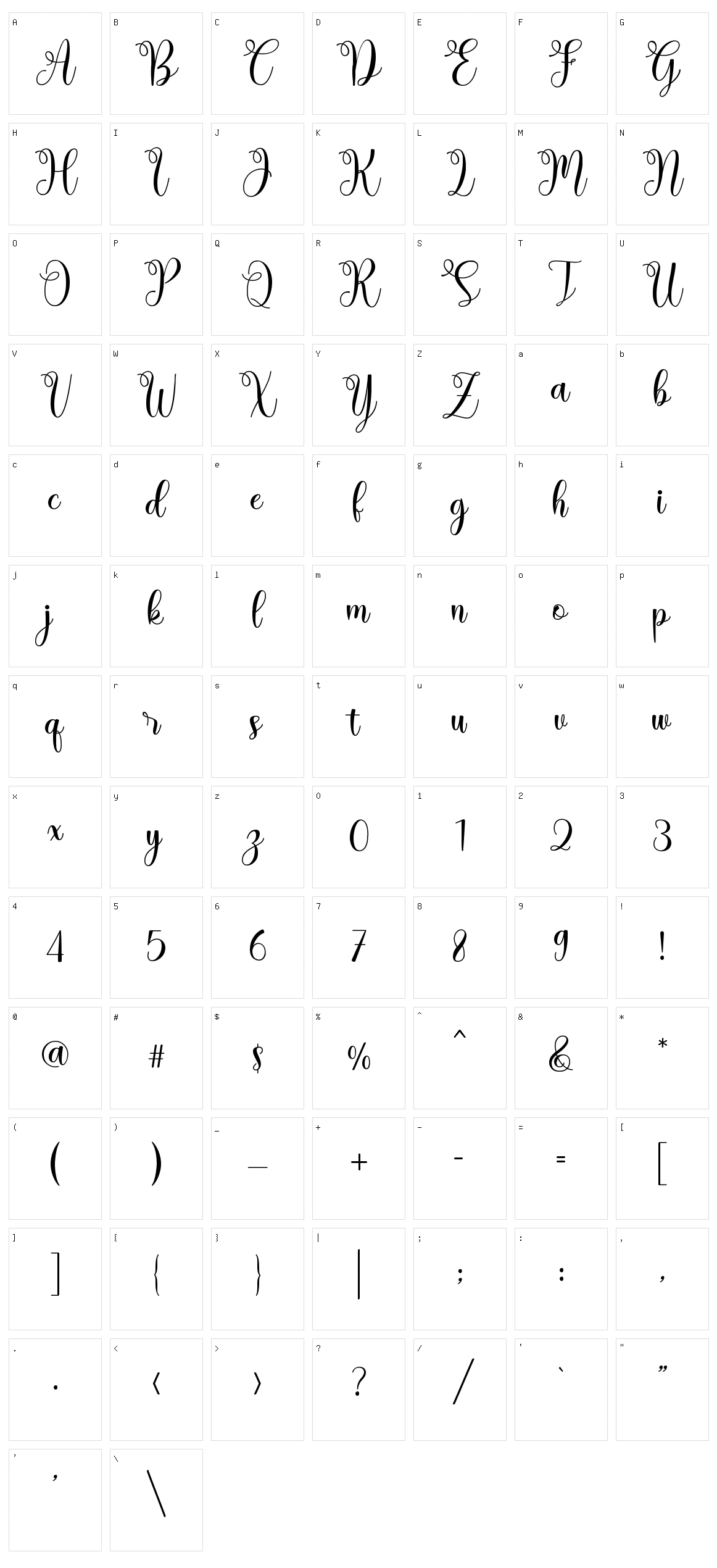
The free font Hayslei is carefully designed by ToniStudio, showcasing a thoughtful balance of creativity and usability and falls under the Script font style. When you download the ZIP file, it contains only 149.33 KB of font files, making it lightweight and quick to download. Please review the license details below to understand permitted usage and distribution rights. If license information is not available, we recommend using this font for personal projects only or contacting the author directly for commercial usage permissions.